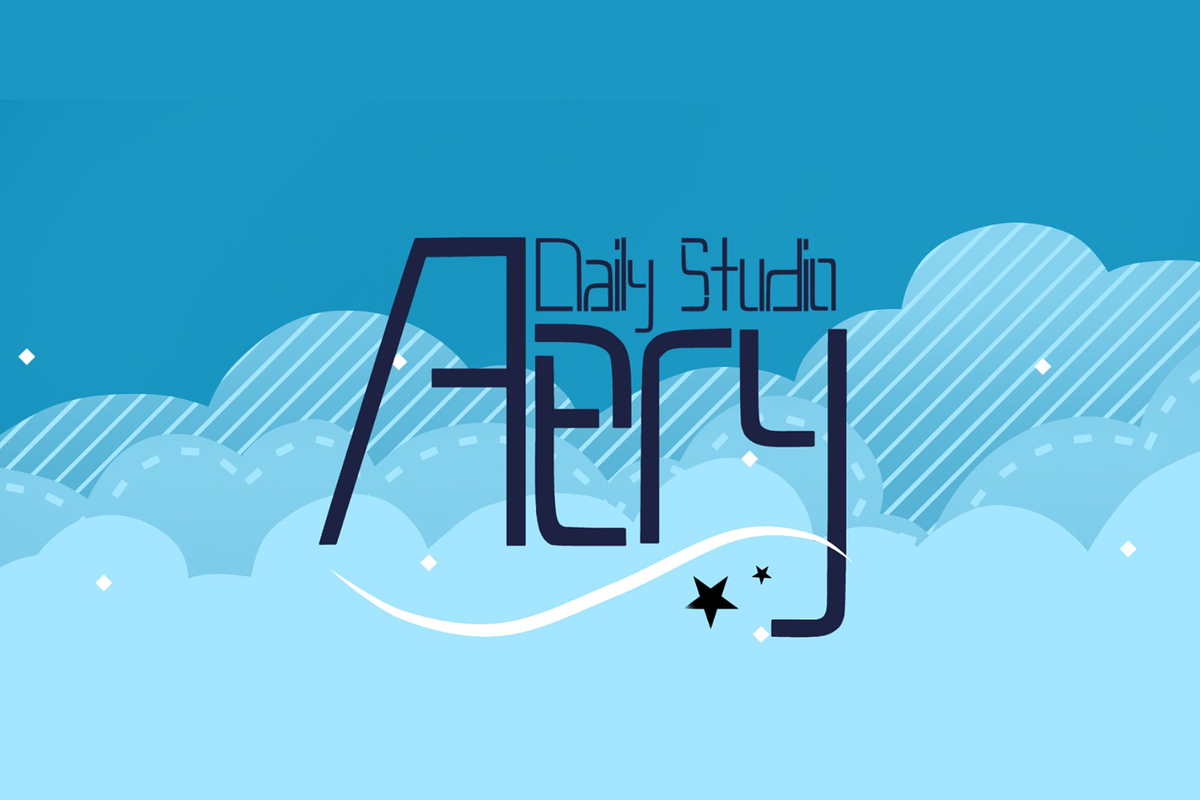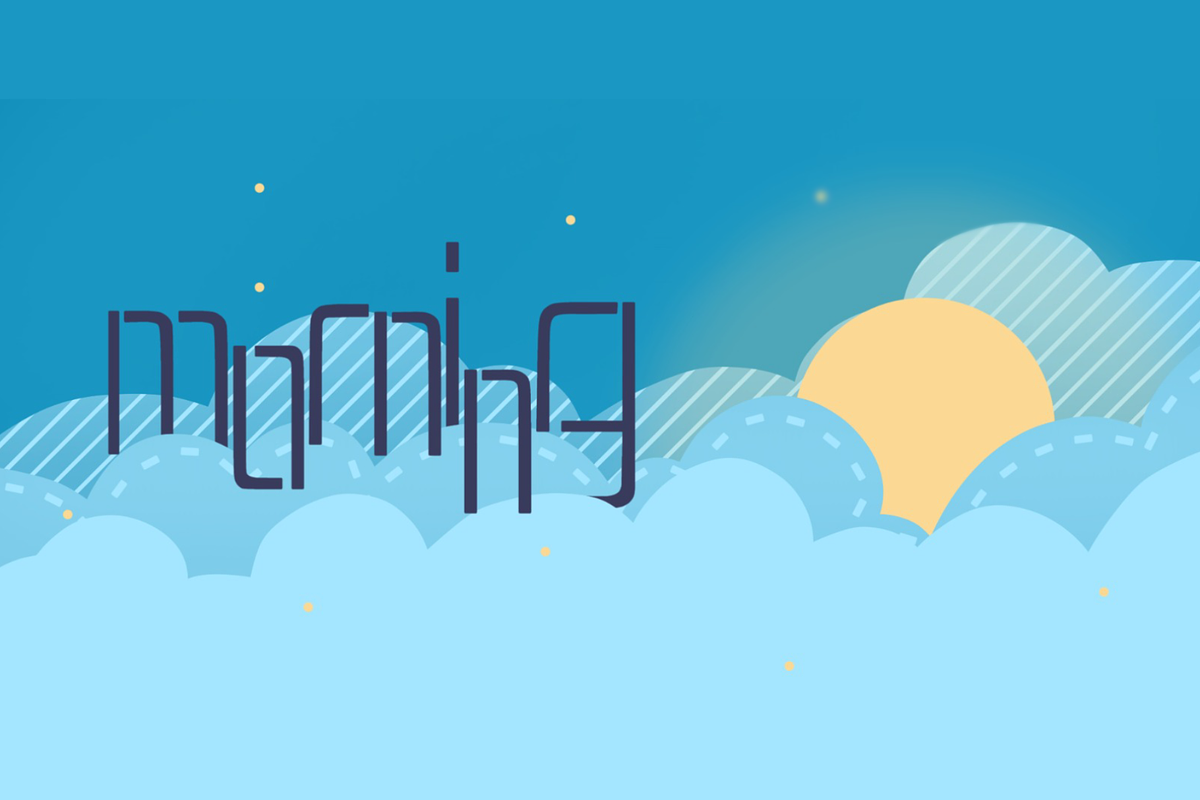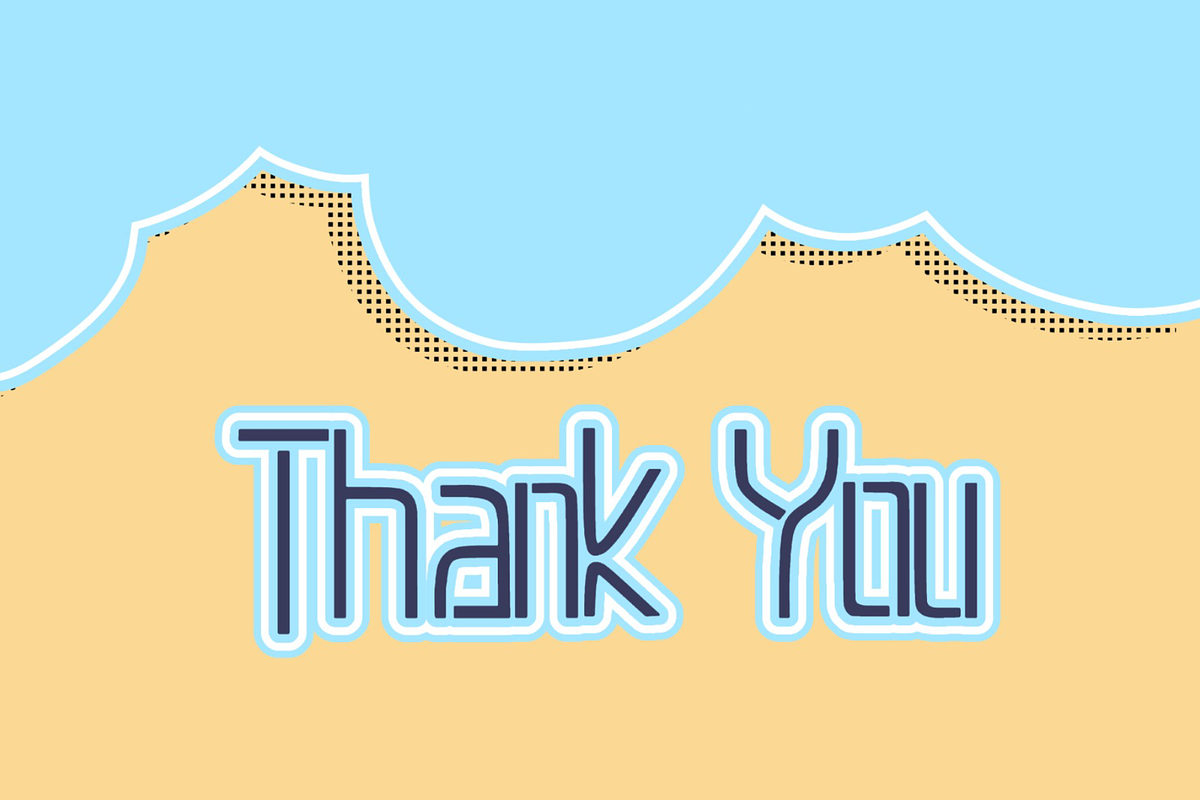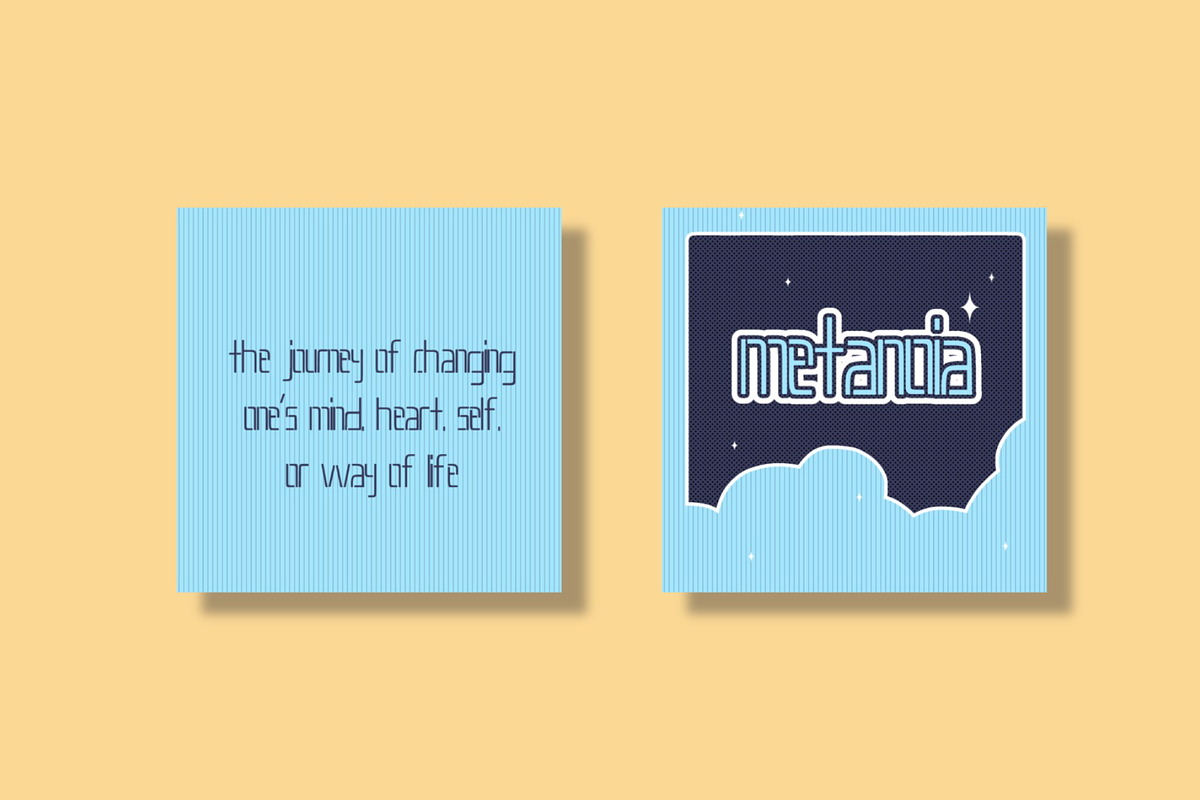
Aery
Aery is a Typeface designed by Daily Studio. This font is a slim type font. Every letter has its design, so it makes your projects look professional and outstanding. Aery contains full uppercase, lowercase, punctuation, and multilingual letters.